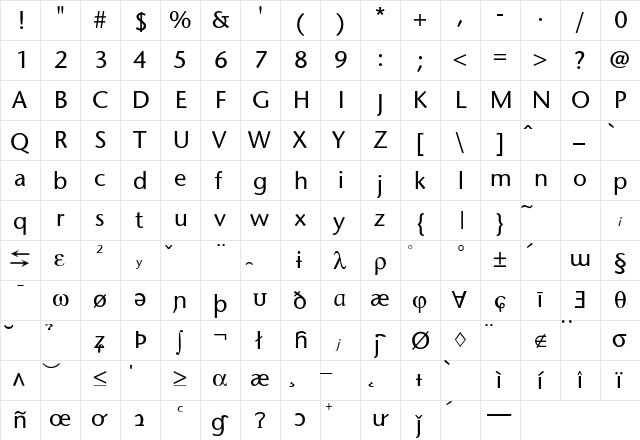
GioanaSSK Regular
Design Context for GioanaSSK Typeface
GioanaSSK is a composed and adaptable typeface that performs quietly and consistently across a wide range of design contexts.